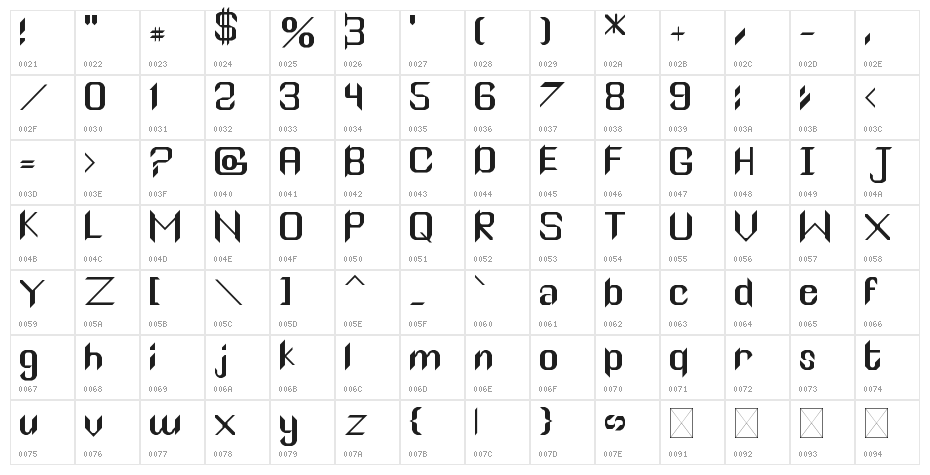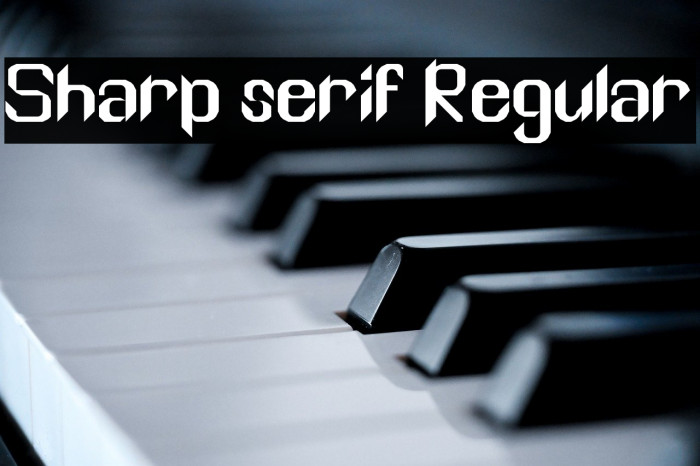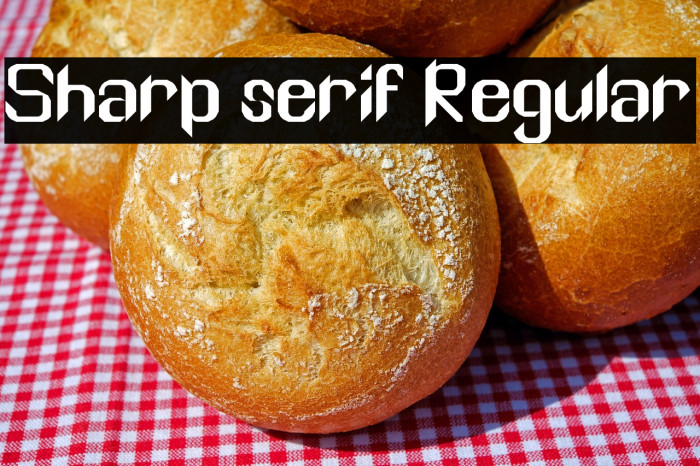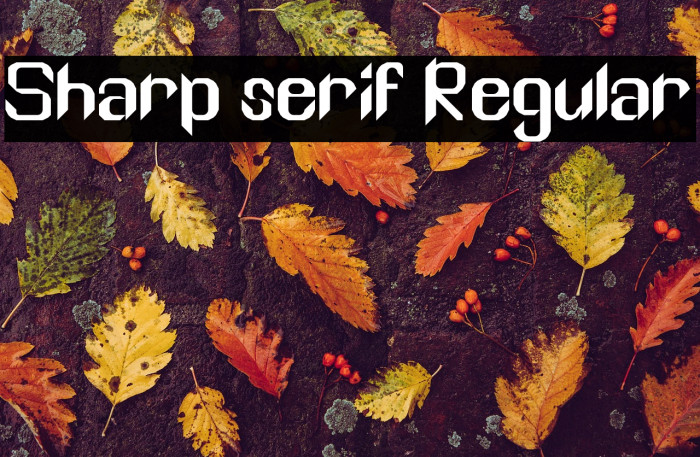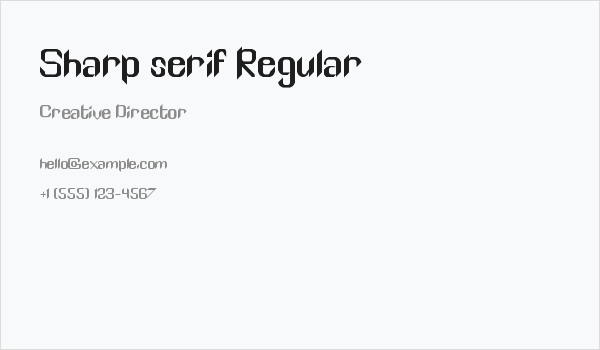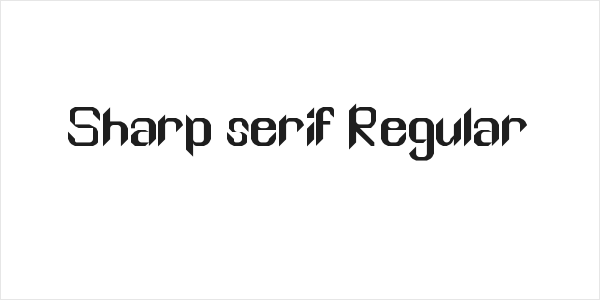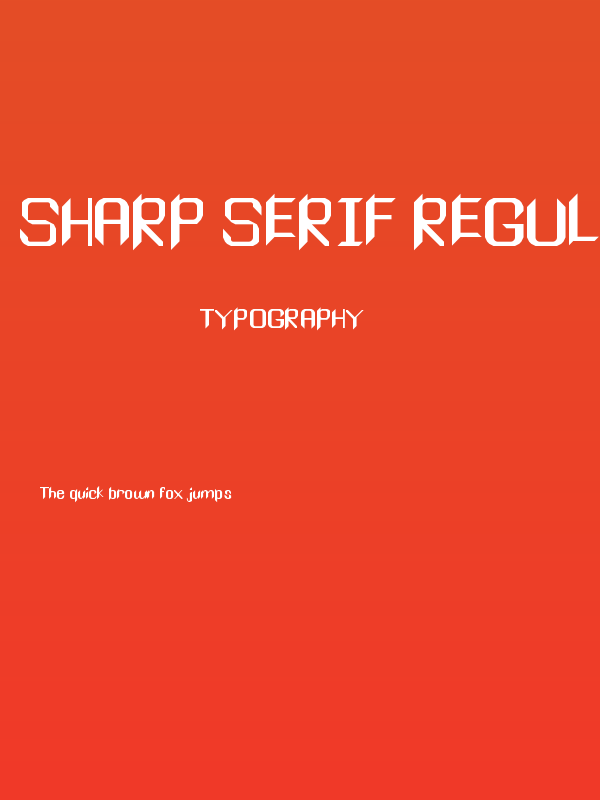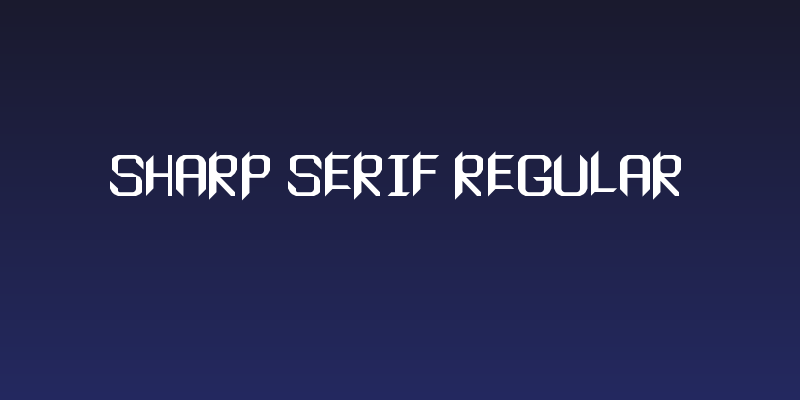
Sharp serif Regular Font
Sharp serif Regular Description
This font features a striking and modern design with sharp, angular serifs that give it a distinctive and edgy appearance. The uppercase letters are bold and commanding, while the lowercase letters maintain a consistent style with slightly softer edges. The numerals are clear and legible, matching the overall aesthetic of the font. Special characters are uniquely styled, adding to the font's versatility. This typeface is ideal for projects that require a bold statement, combining both modern and classic elements in its design.
| Proposed Projects | Ideal for branding, headlines, posters, and digital media where a bold and modern look is desired. |